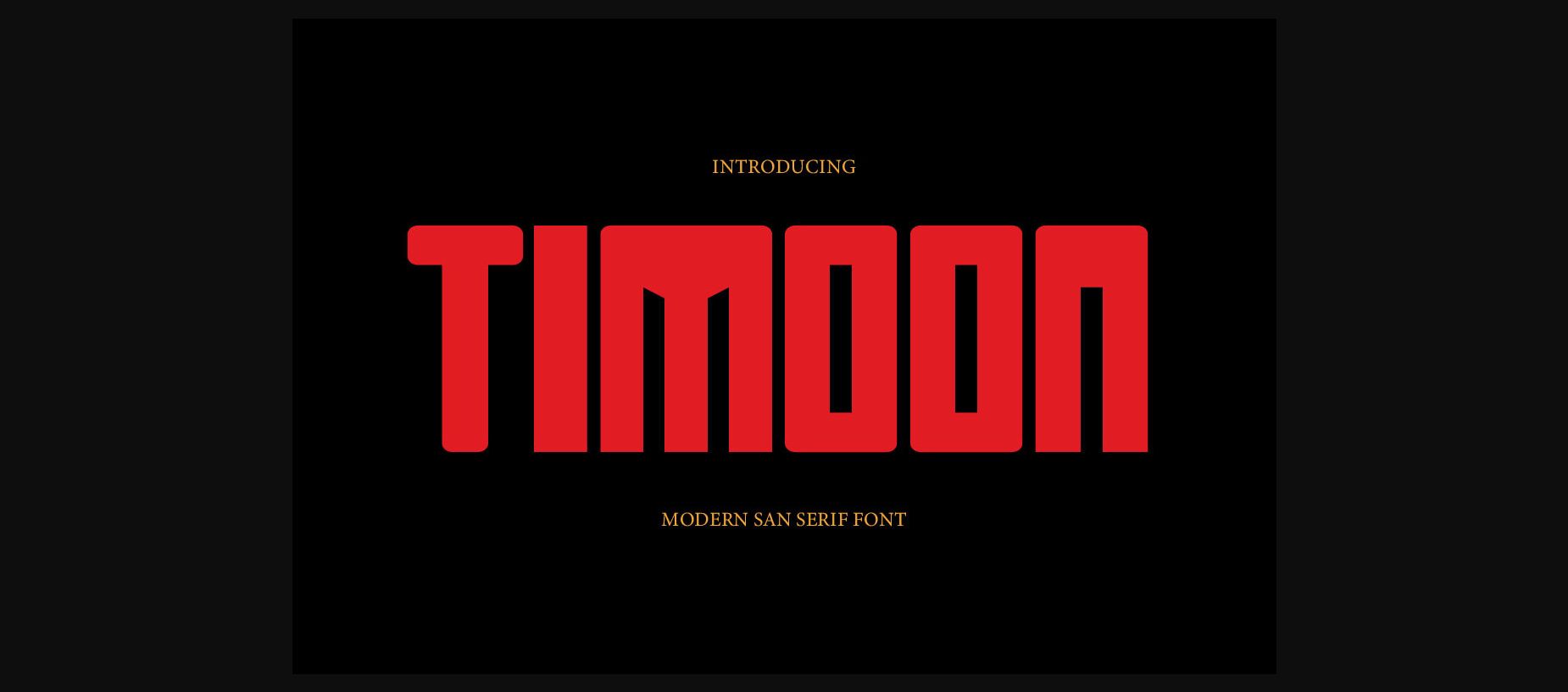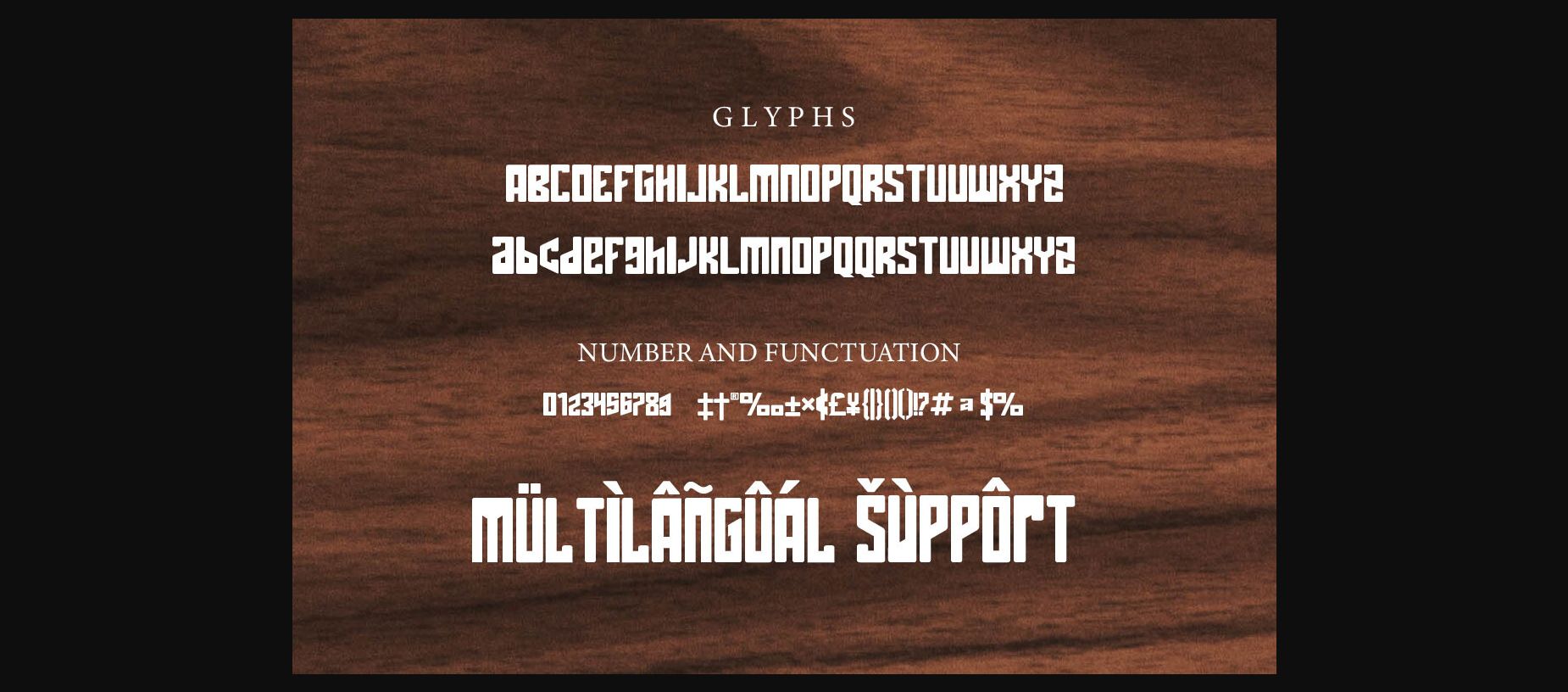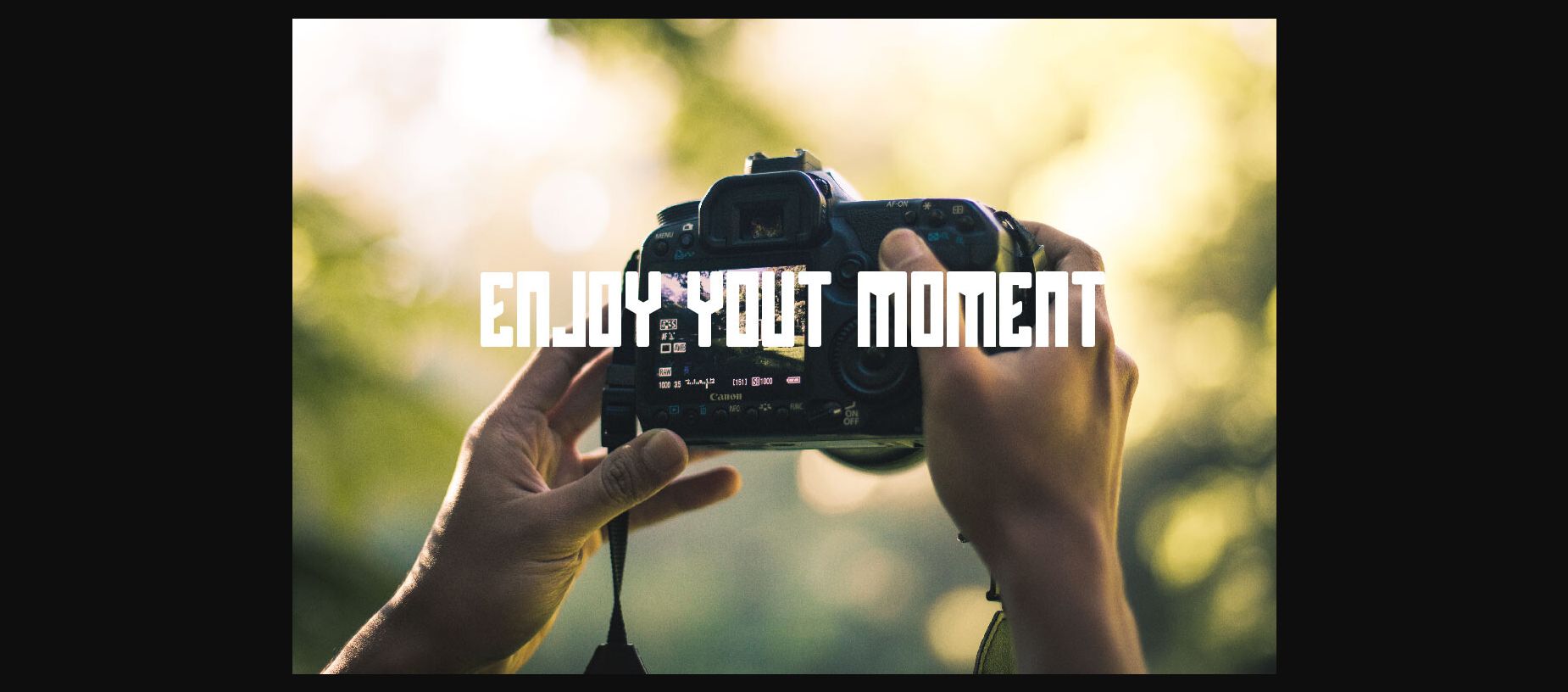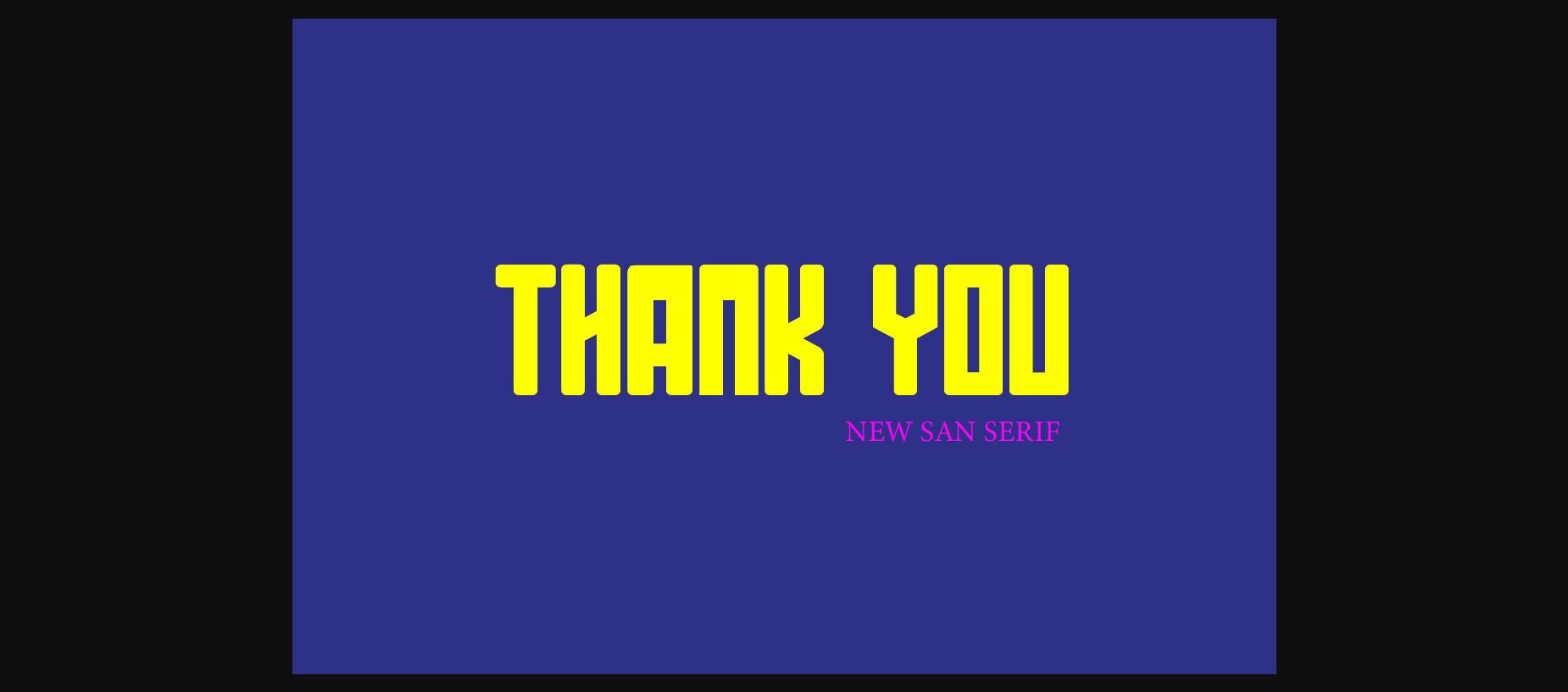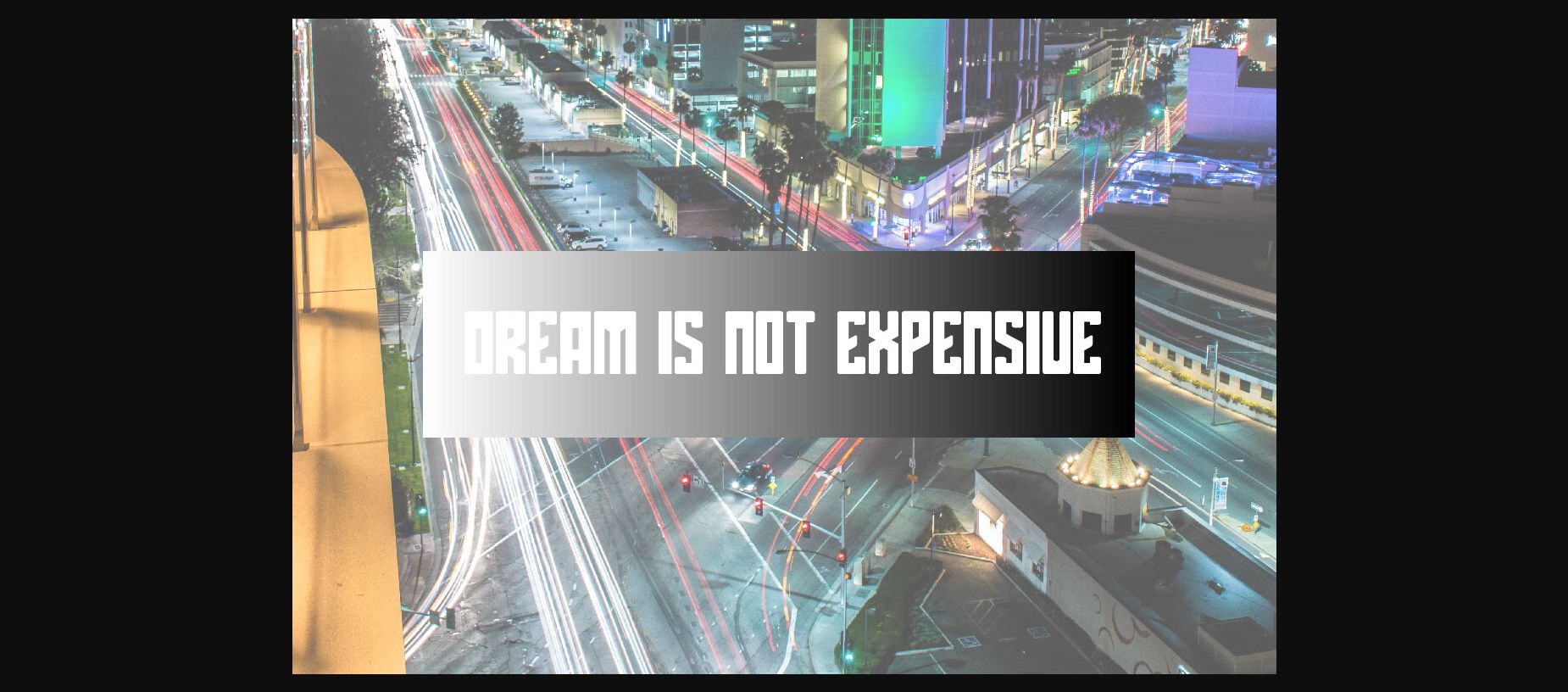
About Timoon Font
Timoon Font is an elegant and beautiful sans serif typeface. This font is ideally suited for a wide variety of projects, such as stationery, logo, wedding, typography quotes, magazine or book covers, website headers, clothing, branding, packaging design, and more. Also, fashion-related branding or editorial design displays both masculine and feminine qualities that you can apply with this font